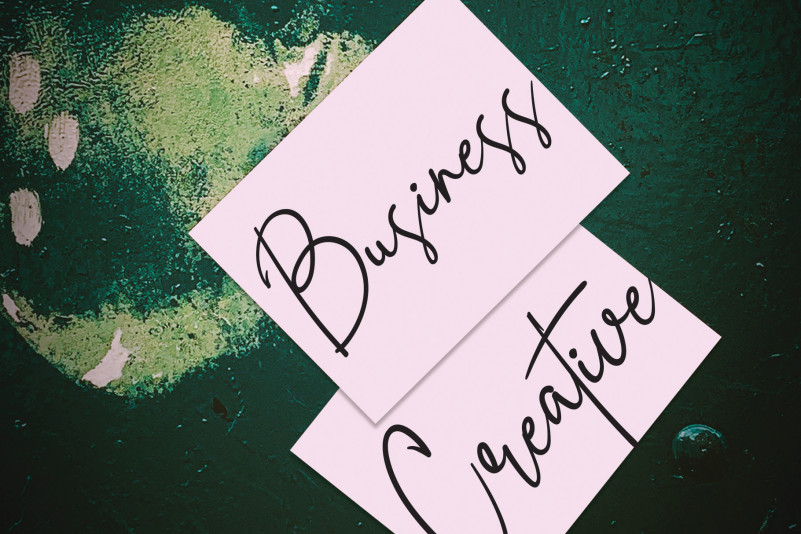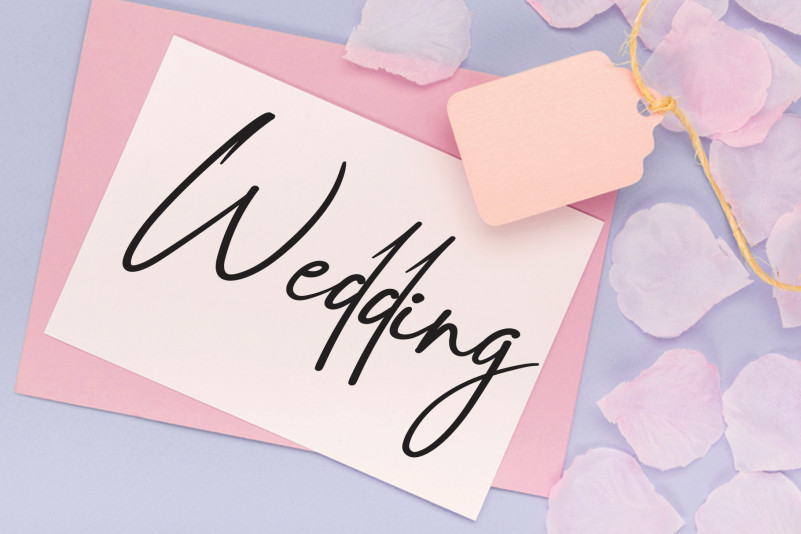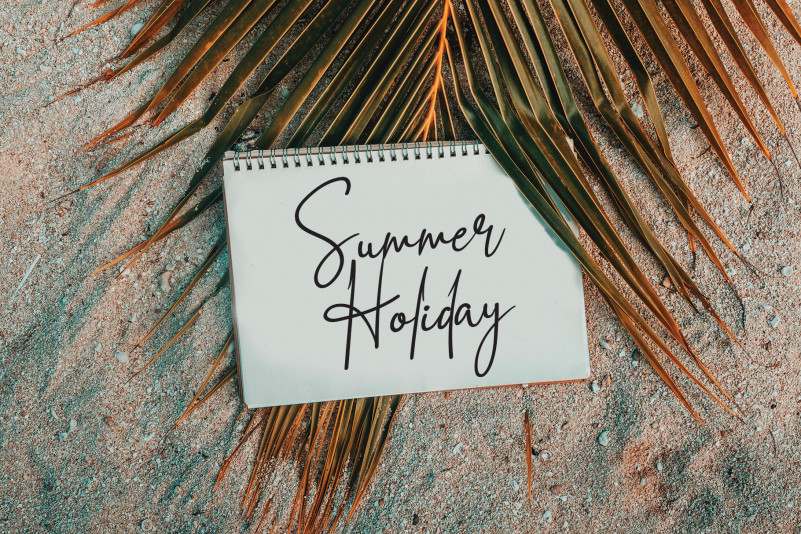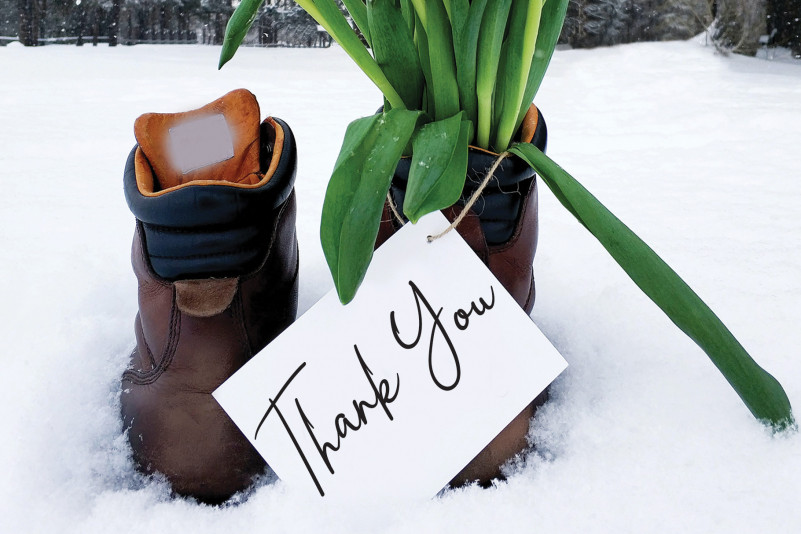
Mimosa Yellow Script Font
Mimosa Yellow Script Font is a relaxed and timeless handwritten font. Adept and trendy, this font will effortlessly become your top choice, no matter the design idea!